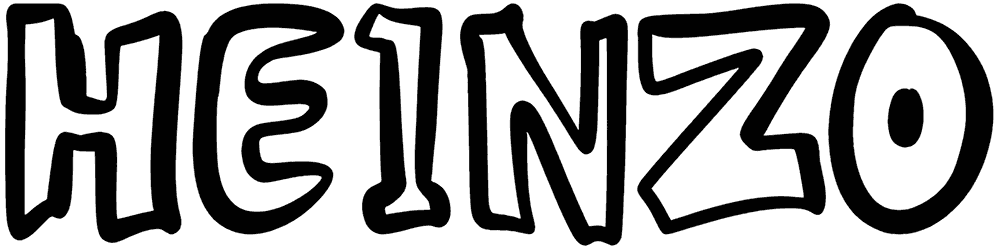
Heinzo Font
Looking for a playful touch to capture the mind and interest of your audience and also elevate your graphical face? Well, today’s offer can bring it to pass. Friendly letters make this cartoon font a suitable preference for many varied themes.